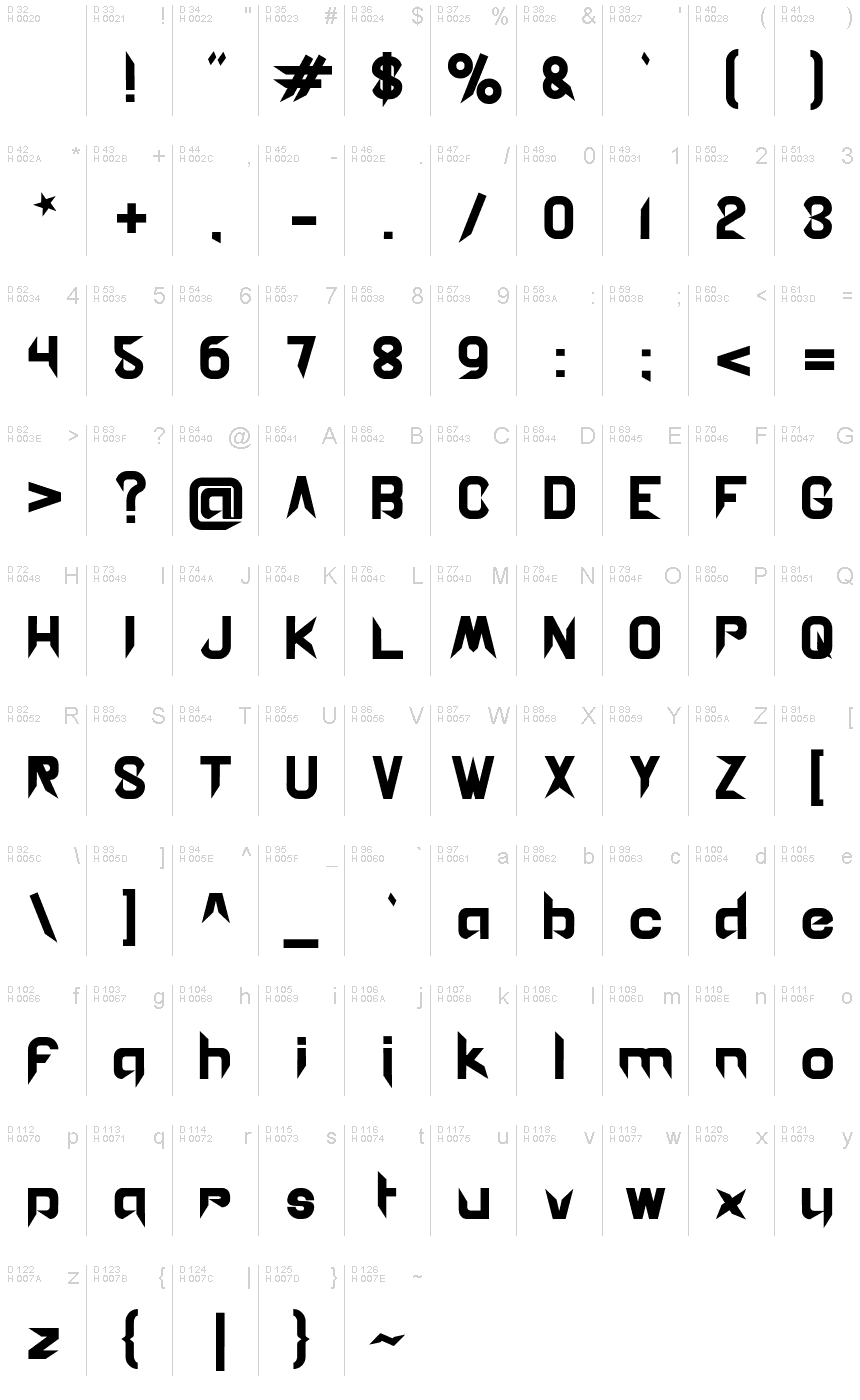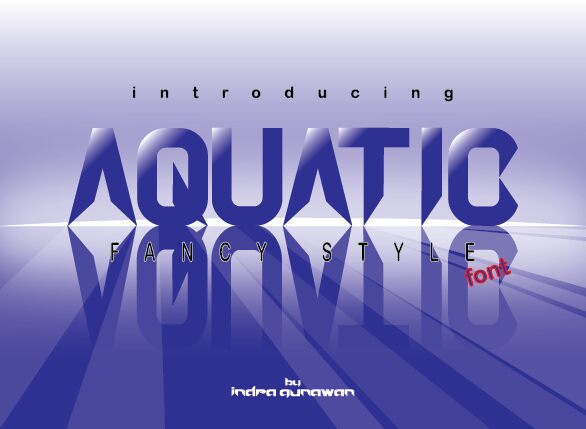
AQUATIC
Aquatic, a bold and modern gothic font designed by Indra Gunawan, is the perfect choice for projects that demand a strong and edgy aesthetic. With its sleek lines and distinctive letterforms, this font adds an air of sophistication to any design.
Whether you're creating posters for a music festival, designing album covers for a rock band, or crafting logos for urban streetwear brands, Aquatic is the bold typeface that will make your designs stand out from the crowd.